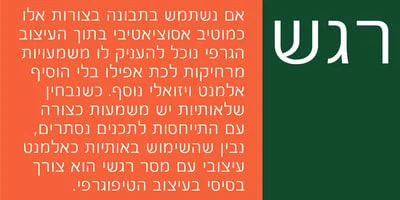
Couponim MF Font
Couponim MF Font is ideal for retail discount promotions, e-commerce sale banners, coupon book designs, bargain store signage, flash sale advertisements, promotional flyers, clearance event posters, and shopping app interfaces.
This font is exciting because it instantly communicates value and savings with its bold, attention-grabbing design that makes every discount offer feel more appealing and urgent. The Couponim MF Font creates psychological triggers that encourage immediate action, transforming ordinary promotional text into compelling calls-to-action that drive customer engagement and sales conversions.
The Couponim MF Font family features dynamic promotional variations including Regular, Bold, Heavy, Italic, Condensed, Extended, Outline, and Impact versions, giving marketing professionals comprehensive typography tools to create irresistible promotional campaigns that maximize customer response rates.
Boost your sales with Couponim MF Font that transforms promotional content into profit-driving marketing materials. This powerful typeface combines commercial appeal with excellent functionality, making it perfect for retailers, e-commerce platforms, and marketing agencies focused on conversion optimization. The font's energetic character design ensures your offers stand out in crowded marketplaces while maintaining clear readability across all promotional channels. Whether you're creating digital advertisements, designing print coupons, or developing mobile shopping experiences, Couponim MF Font delivers the commercial typography that turns browsers into buyers. Its versatile design works effectively across all media platforms while preserving the dynamic energy that makes promotional offers impossible to ignore and highly effective.